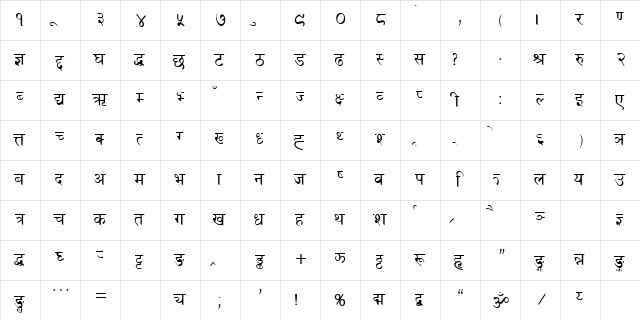
Himal Regular
Design Context for Himal Typeface
Himal offers clean, dependable letterforms without strong stylistic allegiance, making it a practical choice for designers who need flexibility.